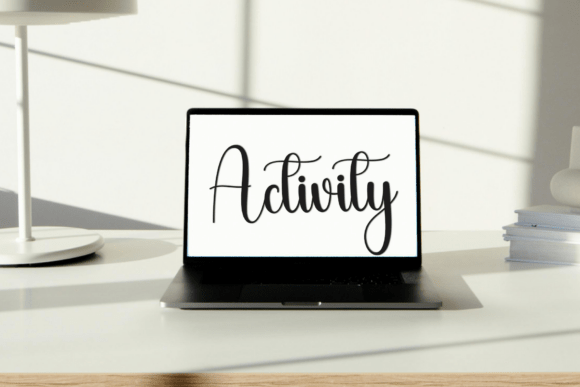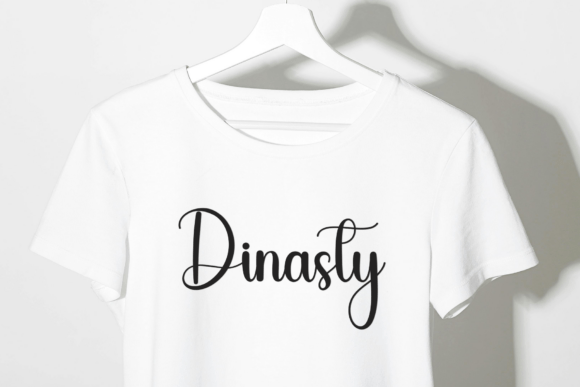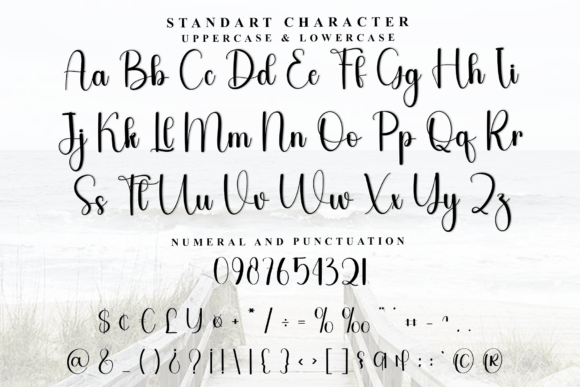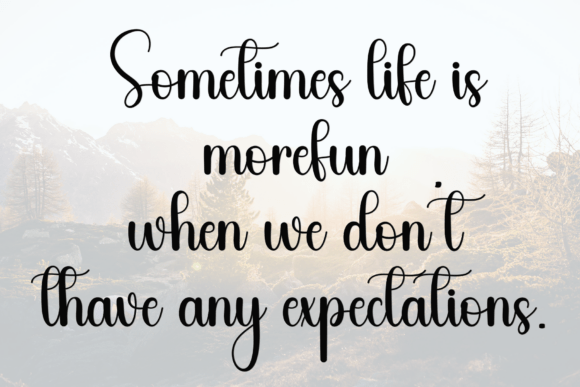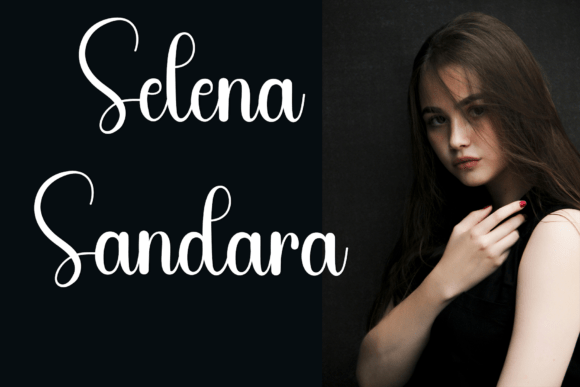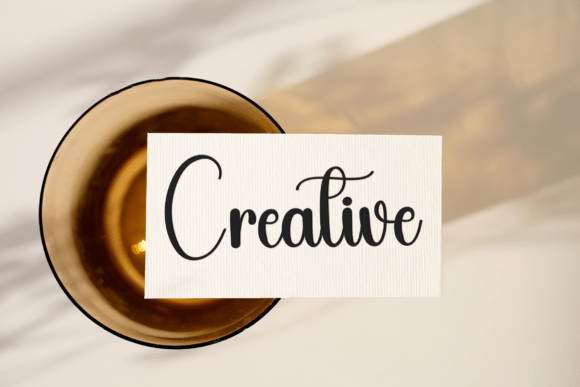
Introducing Graduation Font: The Perfect Blend of Warmth and Creativity
Are you tired of using traditional fonts that lack personality and flair? Look no further than Graduation Font, a casual and creative typeface that exudes warmth and friendliness. This charming font is perfect for designers and crafters looking to add a personal touch to their projects, invitations, and social media graphics.
The Characteristics of Graduation Font
Graduation Font boasts round, playful strokes that create a relaxed and approachable feel. Its hand-drawn aesthetic adds a fun and unique touch to any design, making it ideal for projects that require a personal and creative approach. The font’s charming and inviting appearance is sure to capture the attention of your audience and leave a lasting impression.
What Makes Graduation Font Special?
Perfect for Personal Projects and Designs
Graduation Font is perfect for designers and crafters who want to add a personal touch to their projects. Whether you’re creating invitations, social media graphics, or blog posts, this font is sure to bring a smile to your audience’s faces. Its friendly and approachable appearance makes it ideal for:
- Personal invitations, such as birthday and wedding invitations
- Social media graphics, including Facebook and Instagram posts
- Blog posts and articles that require a personal touch
- DIY projects, such as handmade cards and crafts
Tips for Using Graduation Font
To get the most out of Graduation Font, here are a few tips to keep in mind:
- Use it for headlines and titles to add a pop of personality to your design
- Pair it with other fonts to create a unique and eye-catching combination
- Don’t be afraid to get creative and try new things – Graduation Font is all about having fun and expressing yourself!
Why Designers and Crafters Love Graduation Font
Graduation Font has quickly become a favorite among designers and crafters, and for good reason. Its unique blend of warmth and creativity makes it the perfect addition to any design project. Here are just a few reasons why designers and crafters love Graduation Font:
- It’s versatile and can be used for a variety of projects and designs
- It’s fun and creative, adding a personal touch to any design
- It’s high-quality and professionally designed, ensuring a polished and finished look
In conclusion, Graduation Font is a must-have for designers and crafters looking to add a personal touch to their projects. Its unique blend of warmth and creativity makes it the perfect choice for anyone looking to create fun and engaging designs. With its standard PUA Encoded glyphs and compatibility with a wide range of design applications, Graduation Font is the perfect addition to any design toolkit.